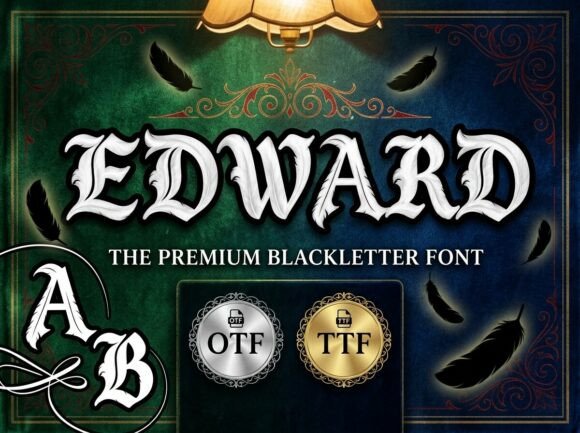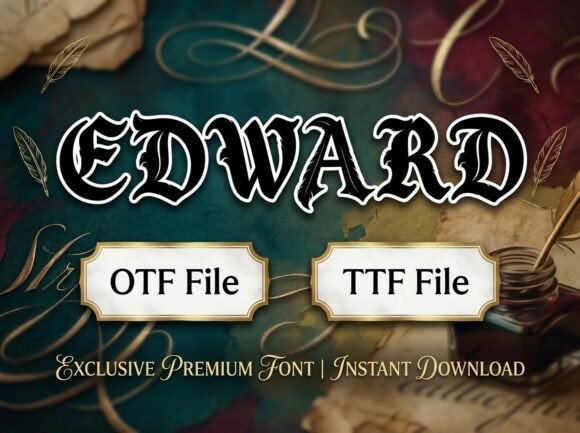
Introducing Edward Font: A Stunning Decorative Display Font
Are you tired of using the same old fonts for your designs? Do you want to add a touch of uniqueness and creativity to your projects? Look no further than Edward Font, a breathtaking decorative display font that’s designed to be the center of attention. In this article, we’ll dive into the features and benefits of Edward Font, and explore how it can elevate your designs to the next level.
A Font that Breaks the Mold
Edward Font is a carefully crafted decorative display font that’s perfect for creators who want to break away from the ordinary. With its unique artistic elements and strong visual personality, this font is sure to make a statement in any design. Whether you’re working on bold headlines, artistic logos, or creative packaging, Edward Font is the perfect choice for those who want to add a touch of elegance and sophistication.
Before making a purchase, it’s essential to note that Edward Font is an ALL-CAPS (Uppercase Only) display typeface. This means that it does not include lowercase letters. However, this is by design, as the font is specifically crafted for high-impact headlines, logos, and decorative initials where every letter is a work of art.
Edward Font is a versatile font that’s perfect for a wide range of design applications, including:
- Headlines and Titles: Use Edward Font to create bold and eye-catching headlines that grab attention.
- Logos and Branding: Create a unique and memorable logo that stands out from the crowd with Edward Font.
- Packaging and Product Design: Add a touch of elegance and sophistication to your product packaging with Edward Font.
- Art and Illustration: Use Edward Font to add a decorative touch to your artwork and illustrations.
Why Choose Edward Font?
So why choose Edward Font over other decorative display fonts? Here are just a few reasons:
- Unique and Creative: Edward Font offers a fresh and unique perspective on decorative display fonts, making it perfect for designers who want to stand out.
- Professional and Polished: Despite its creative and artistic nature, Edward Font maintains a professional and polished finish, making it suitable for a wide range of design applications.
- Easy to Use: With its simple and intuitive design, Edward Font is easy to use and edit, even for those who are new to working with fonts.
In conclusion, Edward Font is a stunning decorative display font that’s perfect for designers and crafters who want to add a touch of uniqueness and creativity to their projects. With its unique artistic elements, strong visual personality, and professional finish, Edward Font is sure to elevate your designs to the next level. So why wait? Get your hands on Edward Font today and start creating stunning designs that grab attention!